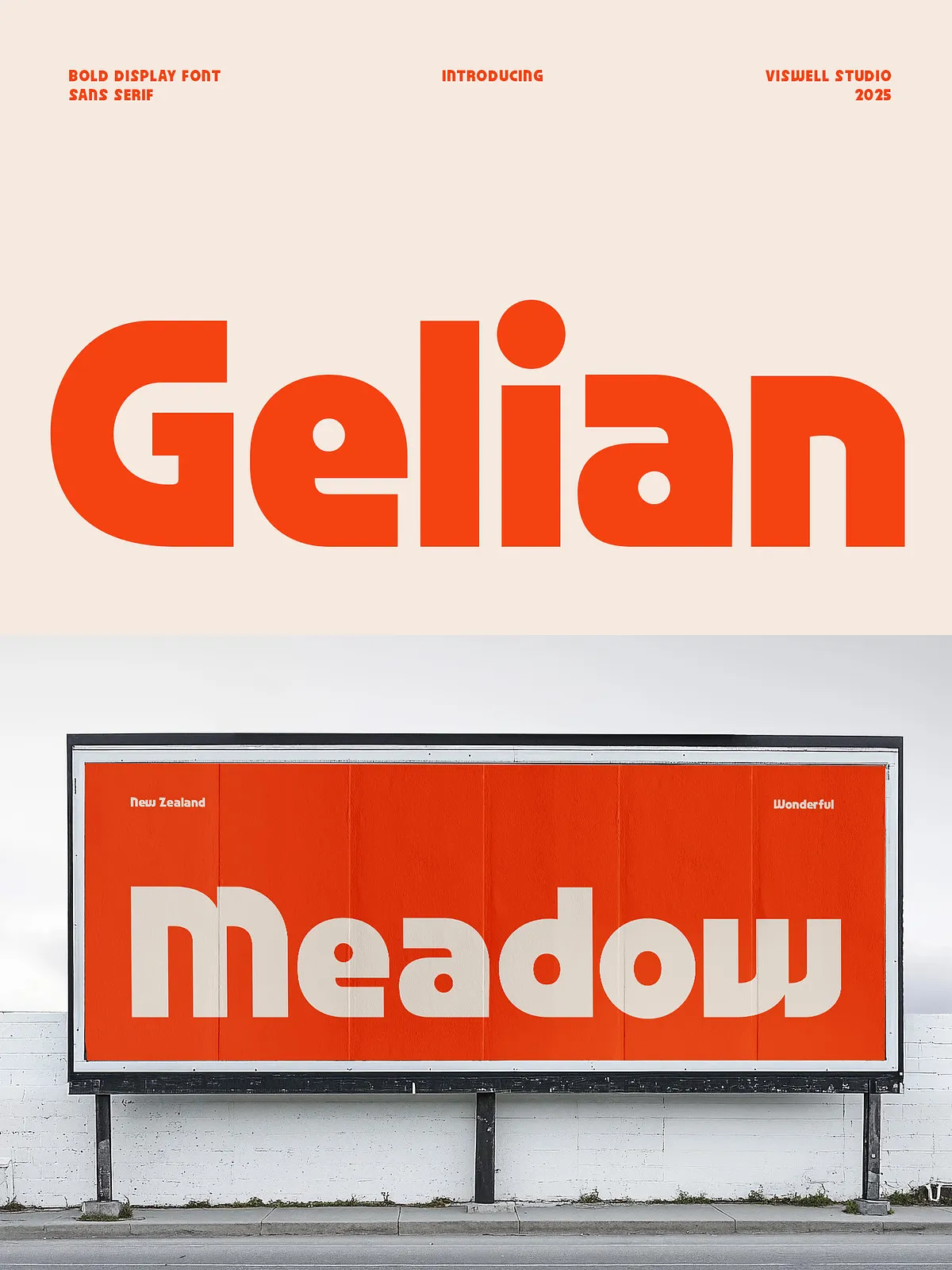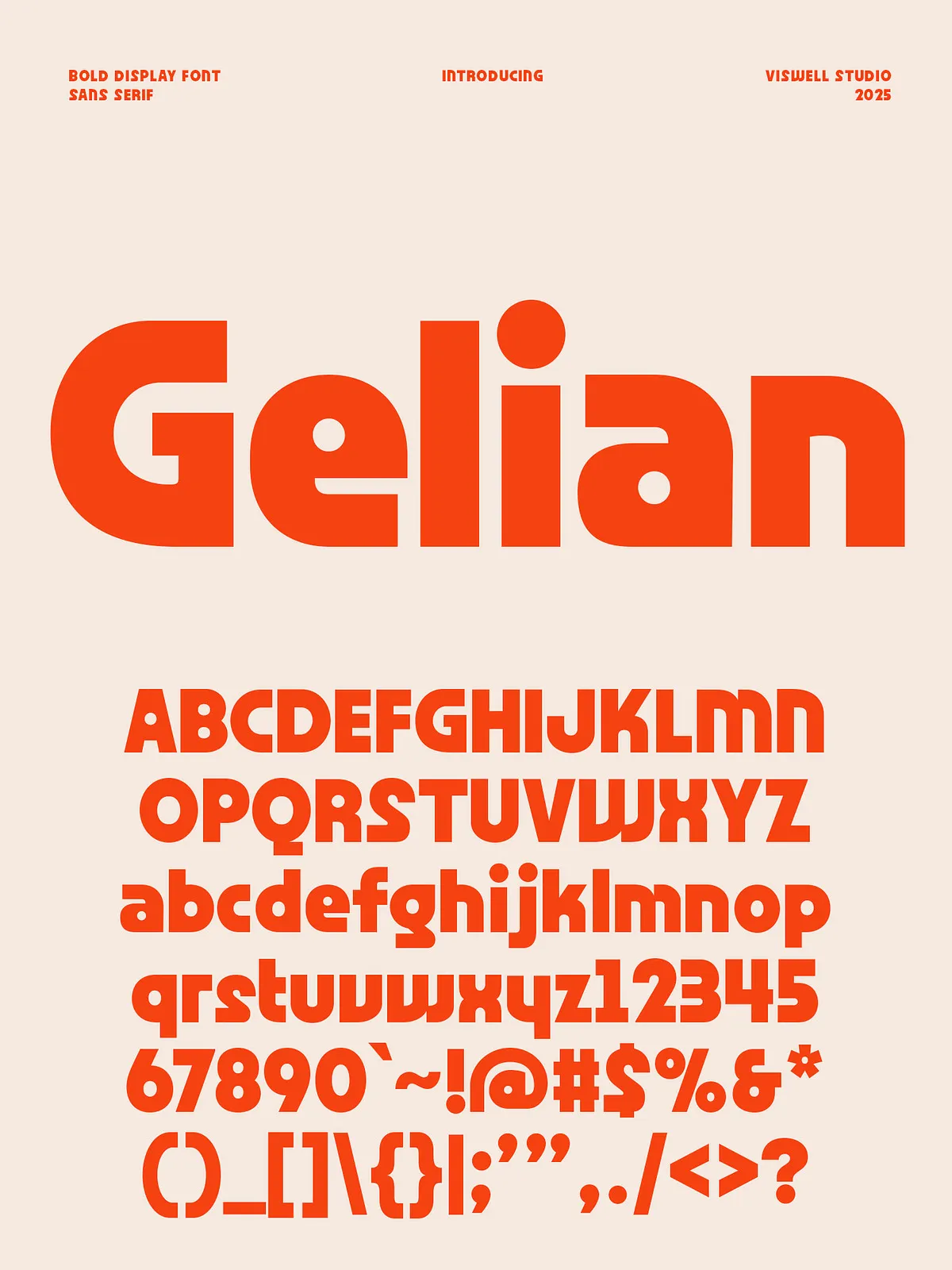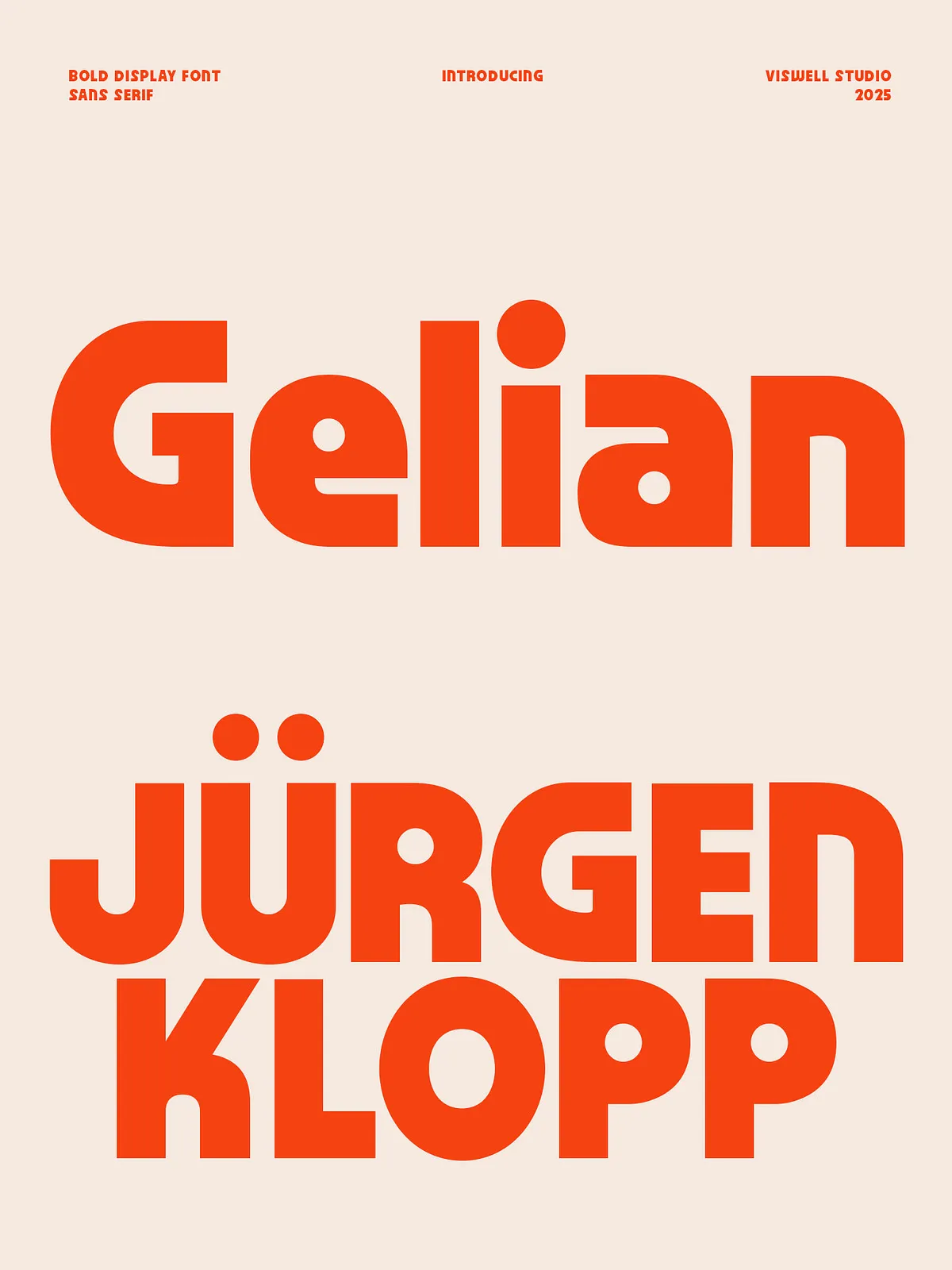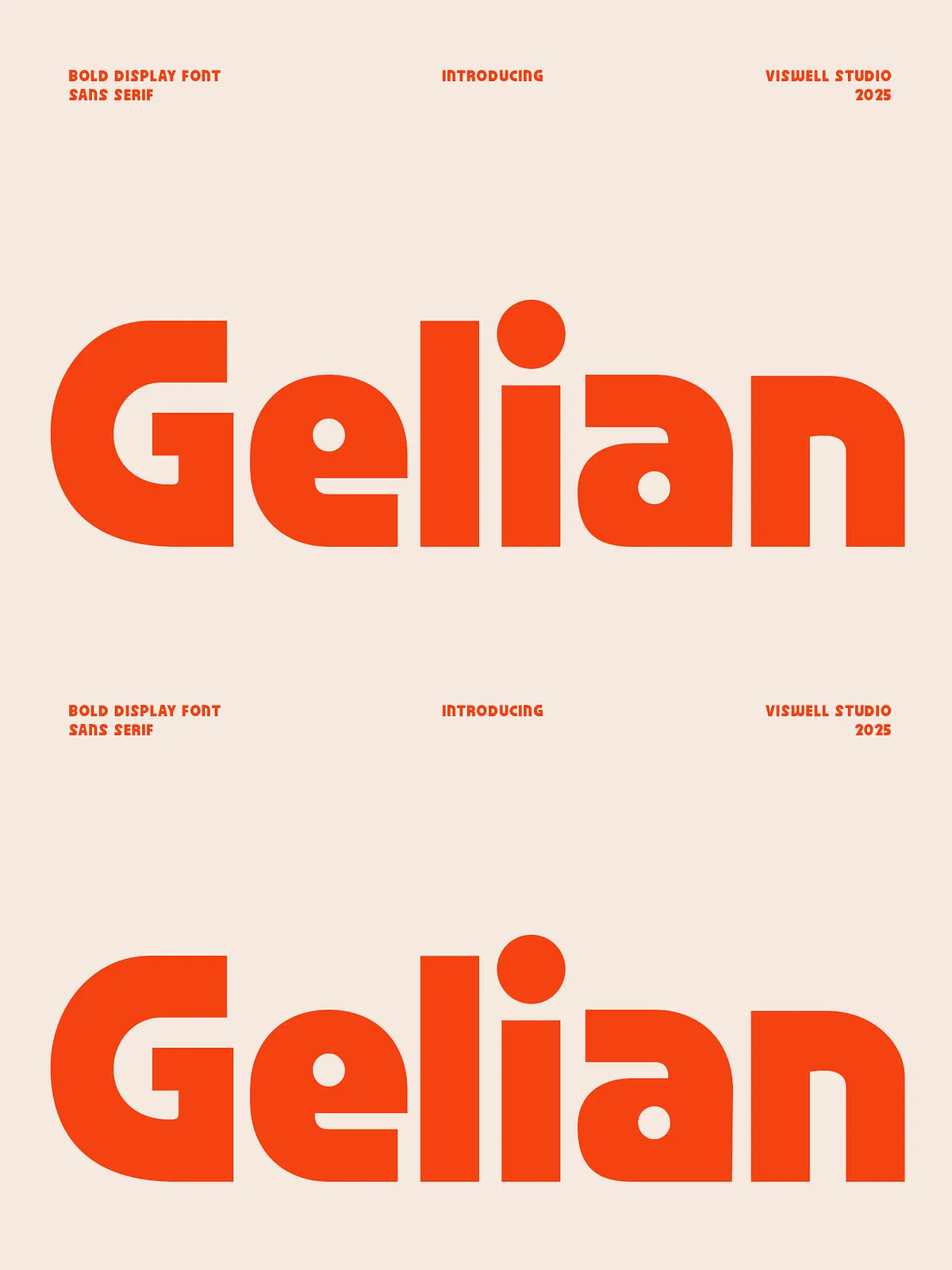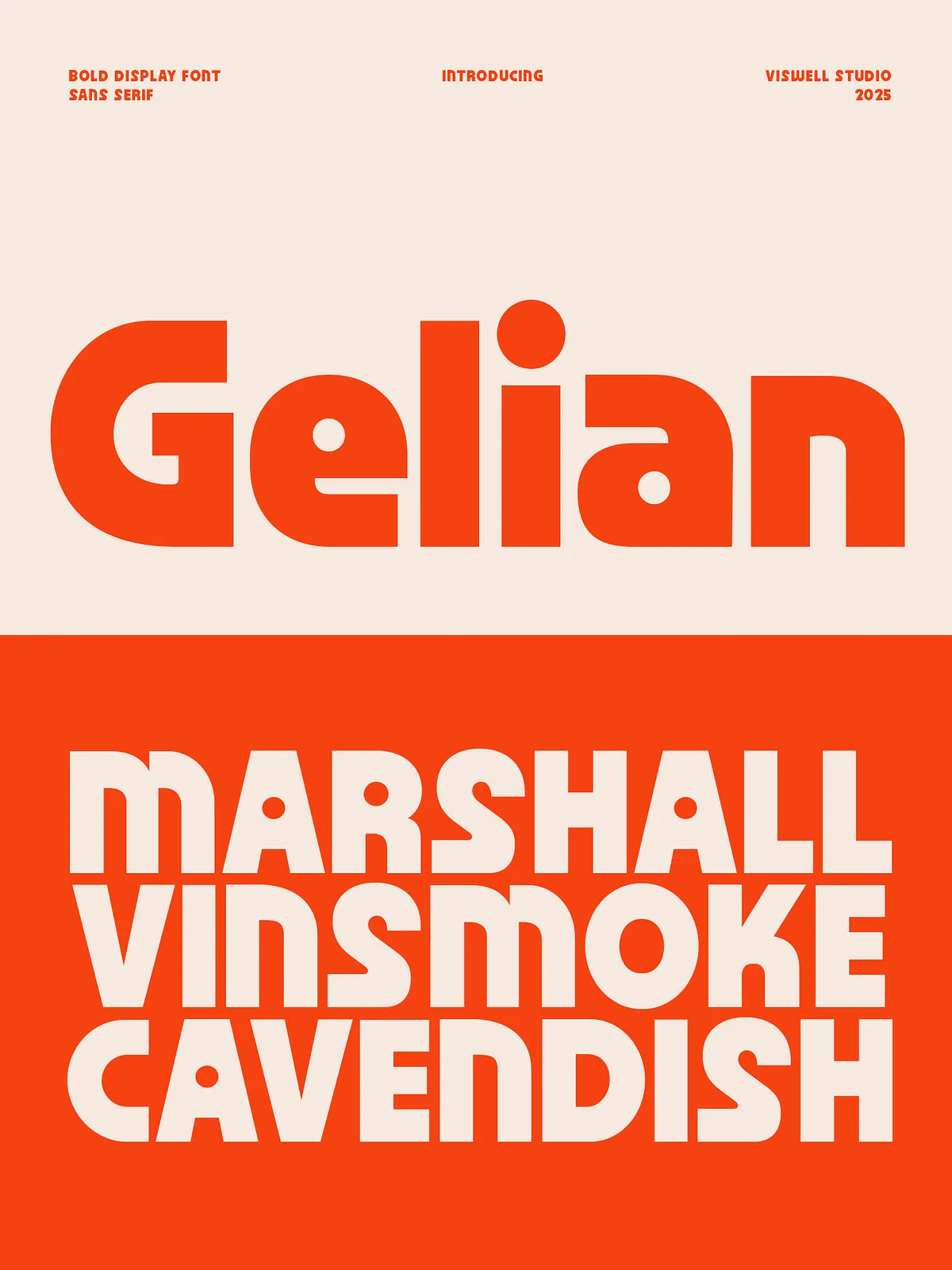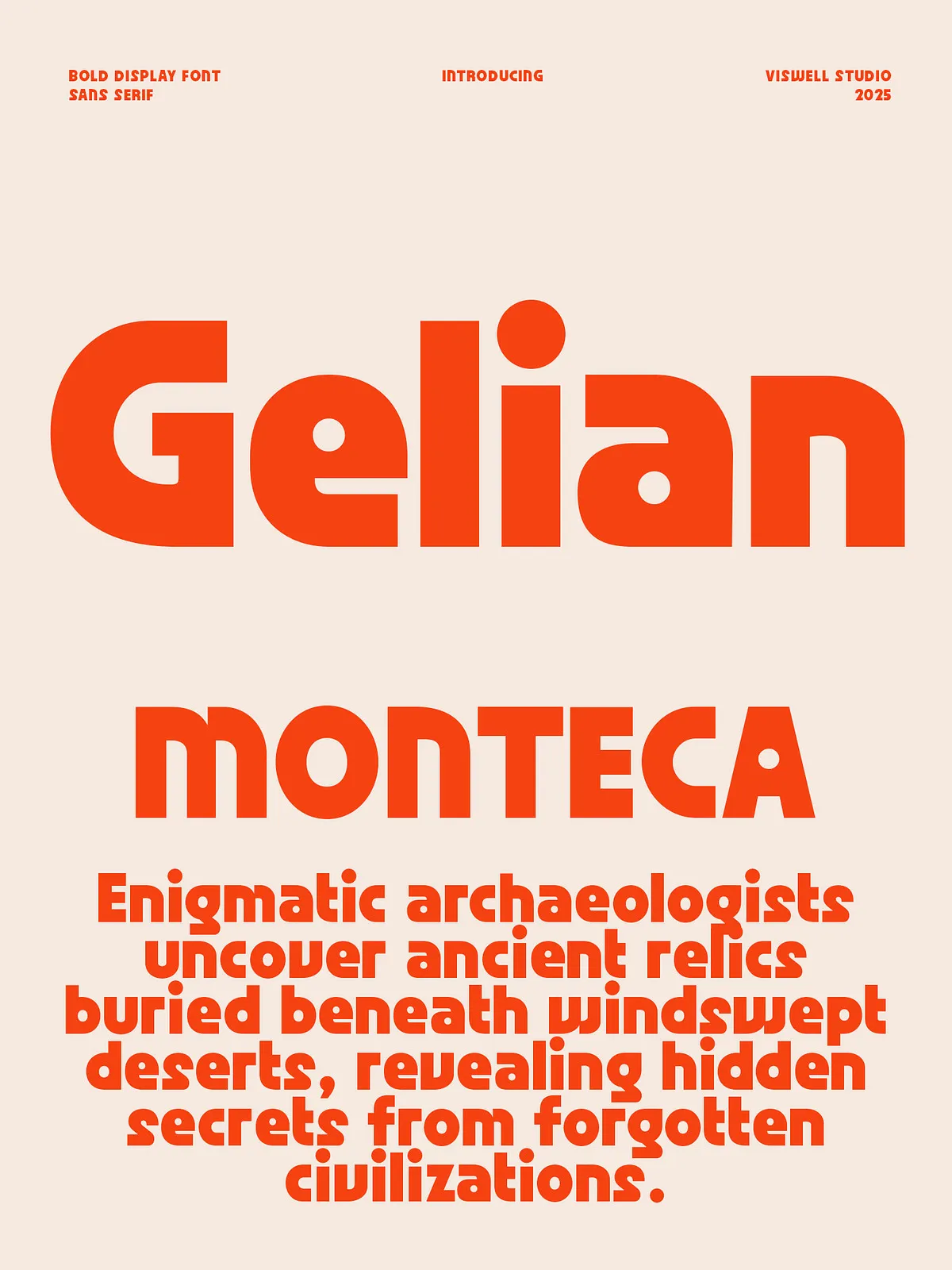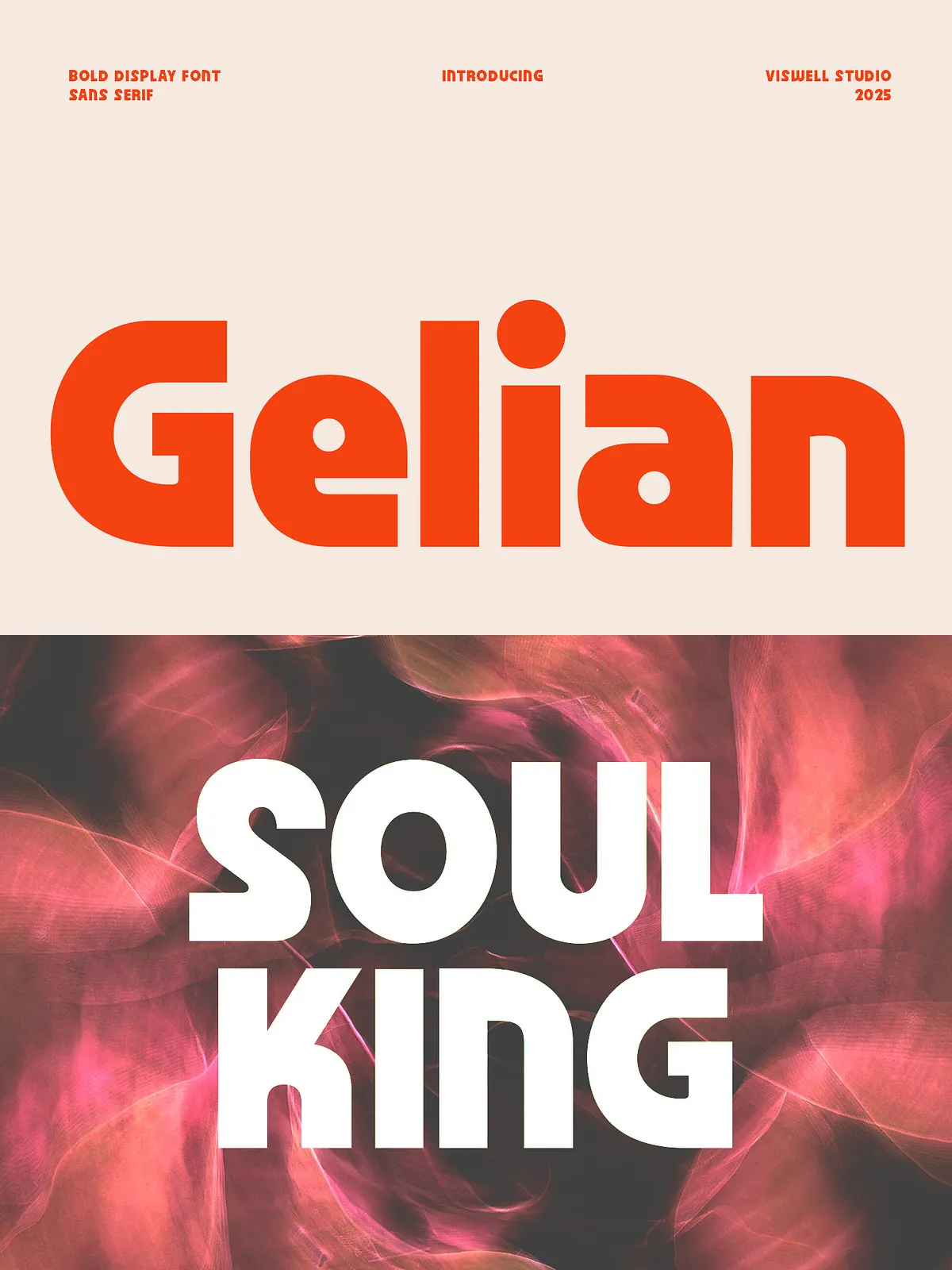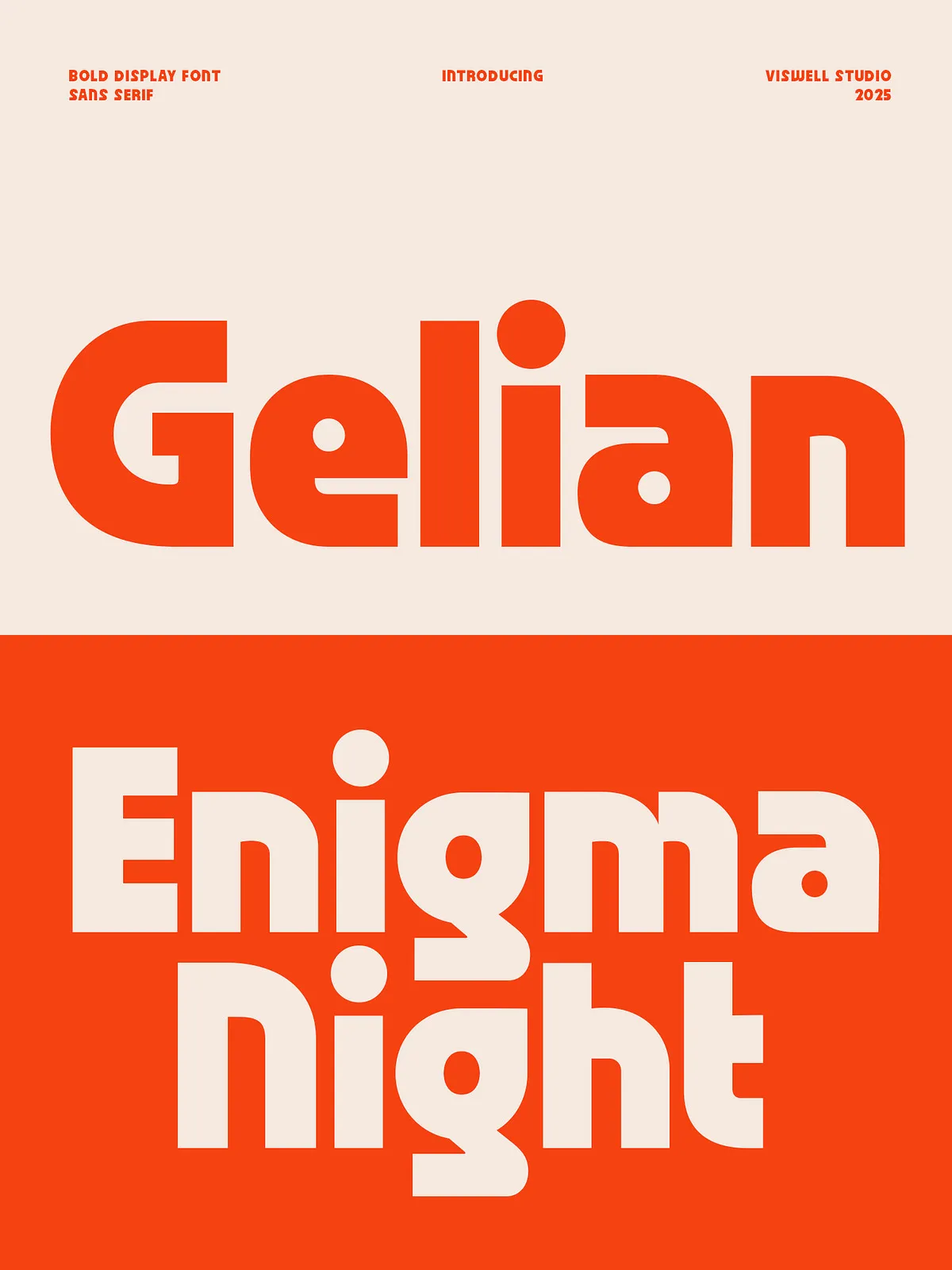
Introducing Gelian – a bold sans-serif display font that commands attention and adds instant impact to any design. Whether you’re crafting eye-catching headlines, logos, packaging, or digital graphics, Gelian brings a retro-futuristic flair with a clean, geometric twist. Its playful yet powerful form features wide curves, quirky alternates, and sharp cuts that create a perfect balance of personality and professionalism. Gelian stands out in modern branding where bold clarity meets creative expression.
Perfect for creatives, entrepreneurs, and brands that dare to be different, Gelian is more than a font—it’s a visual voice. Its strong presence and friendly curves make it ideal for lifestyle brands, fashion, music events, or tech startups aiming for a fresh, standout look. Make your message memorable and inject your visuals with bold energy. Download Gelian today and let your words speak louder in style.